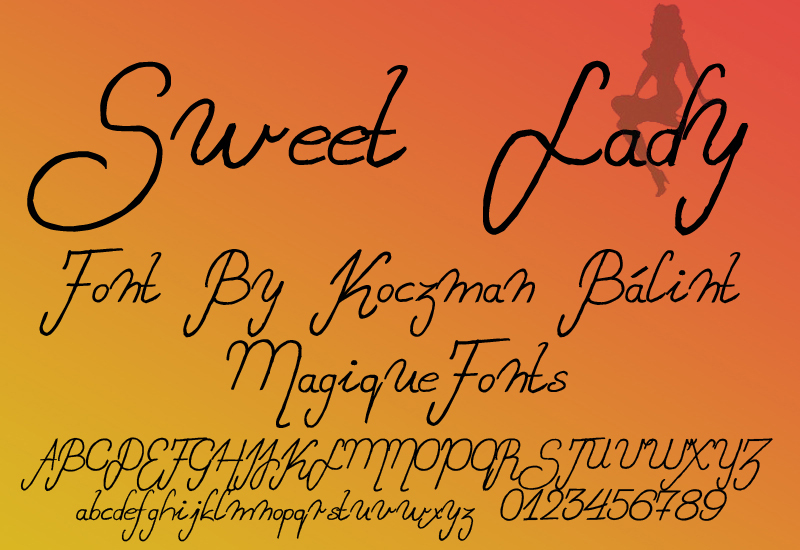
Sweet Lady Italic by Magique Fonts is a free handwritten font with tall, looping letters and a pronounced rightward lean. Long descending loops give the writing an airy, fashion-conscious sweep.
Its signature style moves easily between beauty packaging and wedding invitations, with the same fluid line also suiting boutique logos and magazine covers. The lettering is aimed at designers and brands seeking a personal, refined voice rather than a formal typographic finish.